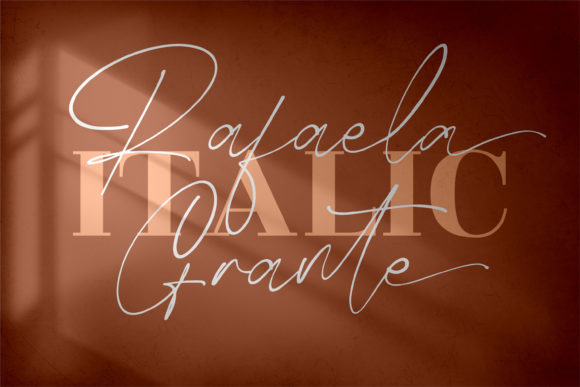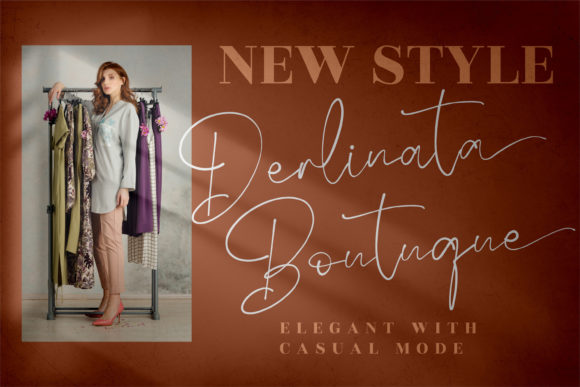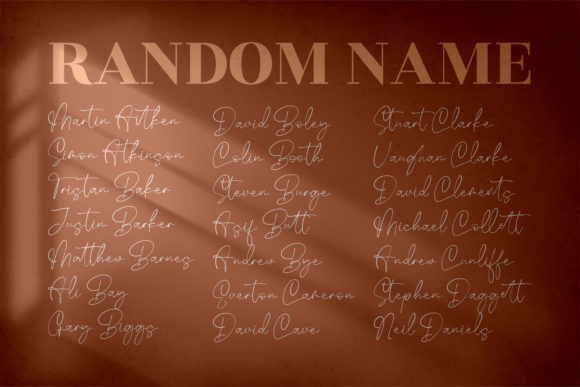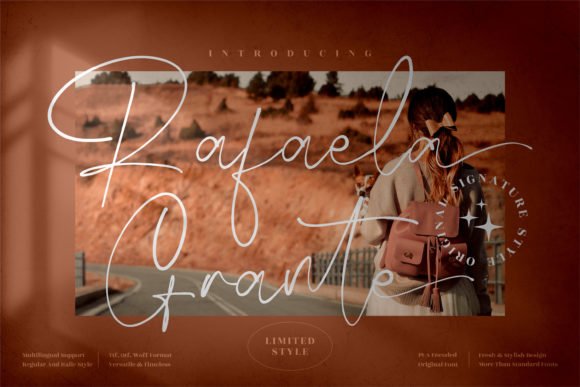
Introduction to Rafaela Grante Font
Rafaela Grante is a beautiful light handwritten font with a unique feel and a stunning impact.
It will add a luxury spark to any design project that you wish to create This font is PUA encoded which means you can access all of the amazing glyphs and ligatures with ease.